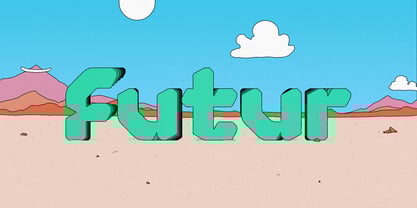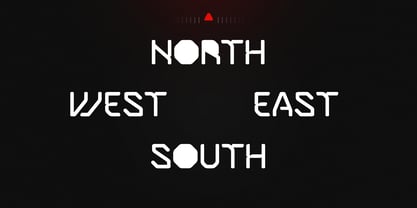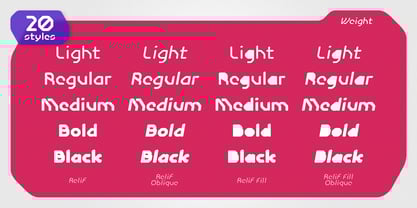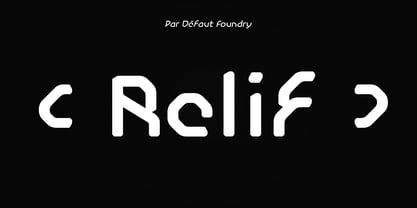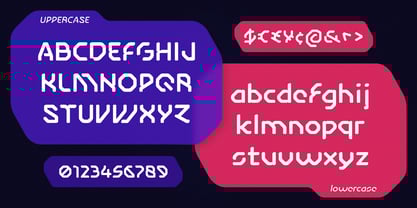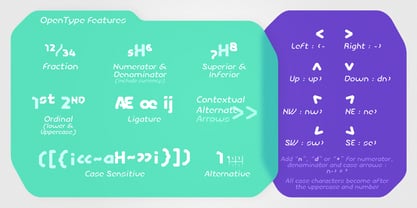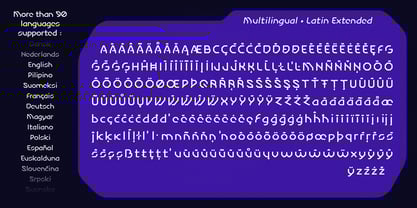
Relif
by Par Défaut
The Relif Font Family was designed by Nathanaël Dorange and published by Par Défaut. Relif contains 20 styles and family package options. More about this family
Relif is futuristic Geometric Font Family
Available in 6 Weights (Light, Regular, Medium, Bold, Black), also in Fill version, all doubled in Oblique
Compose more than 500 characters, Relif support 90 Languages with Latin Extended alphabet
The 10 OpenType Features will allow you to format your text (Fraction, Numerator, Denominator, Superior, Inferior, Case sensitive, Ordinal, Contextual Alternate, Alternate)
• Numerator and Denominator includes numerals & currency
• Contextual Alternate includes ligatures for arrows : "<-" "->" "up>" "dn>" "nw>" "ne>" "sw>" "se>".
Add n, d or +, for numerator, denominator or case arrows.
All Case sensitive characters become after the uppercase and number.